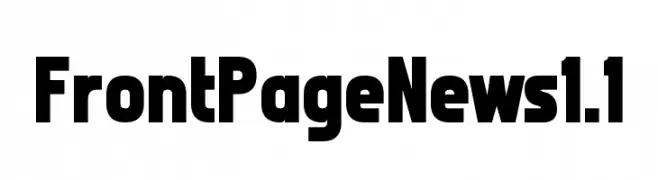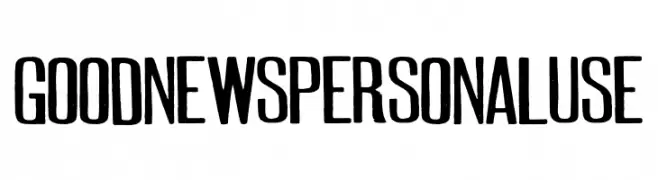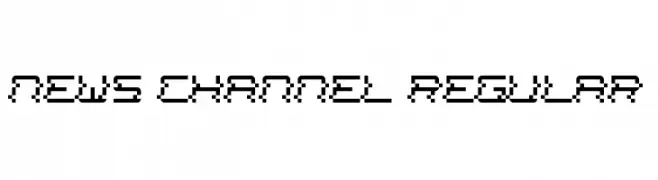
( Het Lettertype Van Duitsland - William Hallworth-Cook )
A pixelated, retro-style font with a digital display aesthetic.
( Peni - Ardi Setiyawan - www.behance.net/penicreative )
A dynamic and elegant script font with flowing, slanted letterforms.
( Zetafonts - www.zetafonts.com )
A sleek, modern italic font with clean lines and a dynamic feel.
( Zetafonts - www.zetafonts.com )
A sleek, modern italic font with clean lines and uniform stroke width.
( Zetafonts - www.zetafonts.com )
A modern, clean sans-serif font with geometric uniformity and excellent readability.
( Zetafonts - www.zetafonts.com )
A modern, geometric sans-serif font with balanced spacing and rounded edges.
( bogstav - www.bogstav.com )
A bold, handwritten font with a casual and dynamic style.
( Chequered Ink - chequered.ink/ )
A bold, modern font with strong, uniform strokes and high legibility.
A modern serif typeface with elegant, refined letterforms and versatile applications.